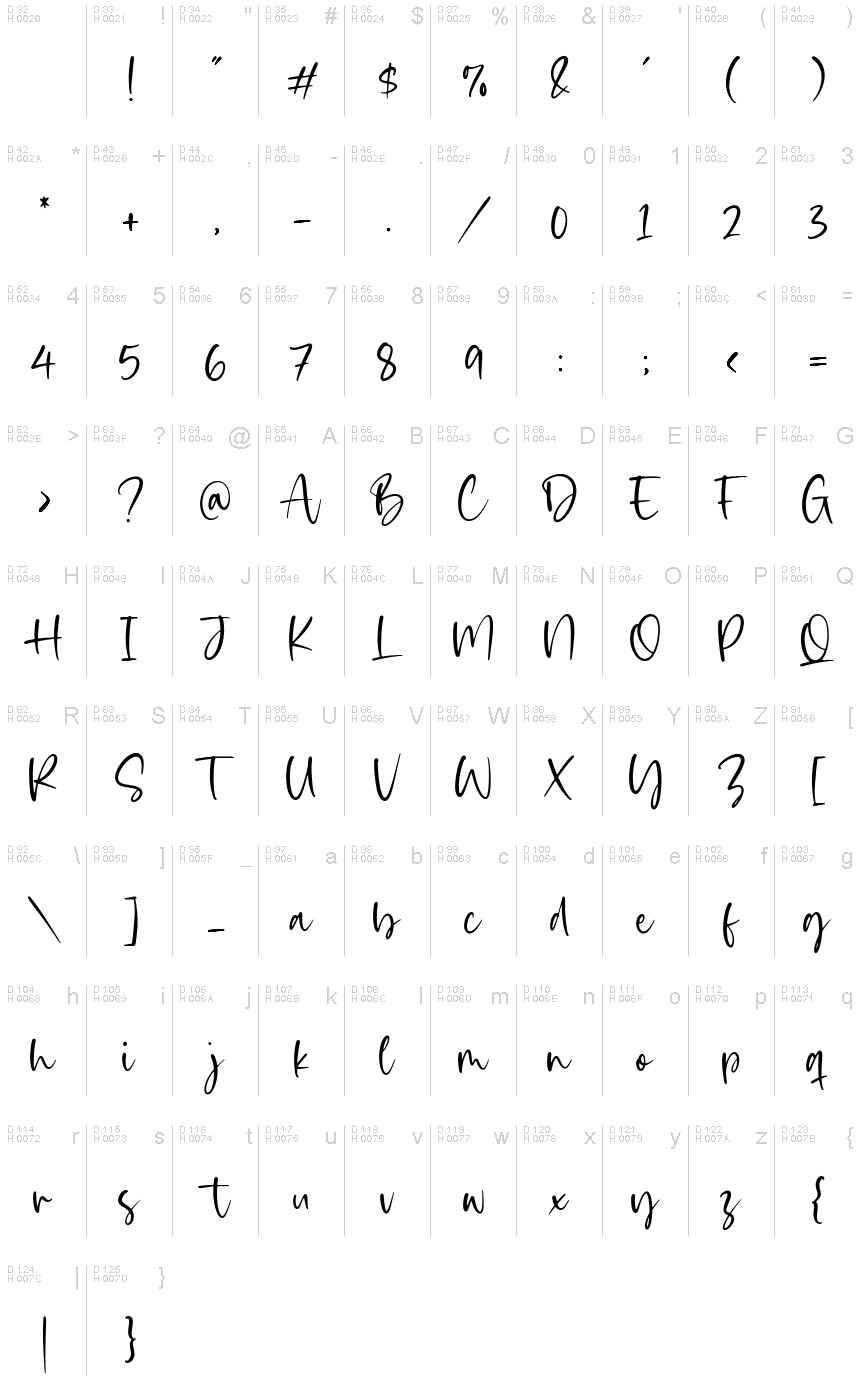
Girlmind
Girlmind font by Letterative Studio captures the essence of elegance and spontaneity with its handwritten style. The fluid cursive letters and organic flow give it a charming, personalized touch, making it perfect for those seeking authenticity in design. Its light, airy feel enhances visual appeal, ideal for invitations, branding projects, or social media graphics where a personal voice is desired.
This free font offers downloadable versatility for designers aiming to infuse creativity into projects. Girlmind stands out as a playful yet sophisticated choice that seamlessly blends warmth and modern aesthetics.